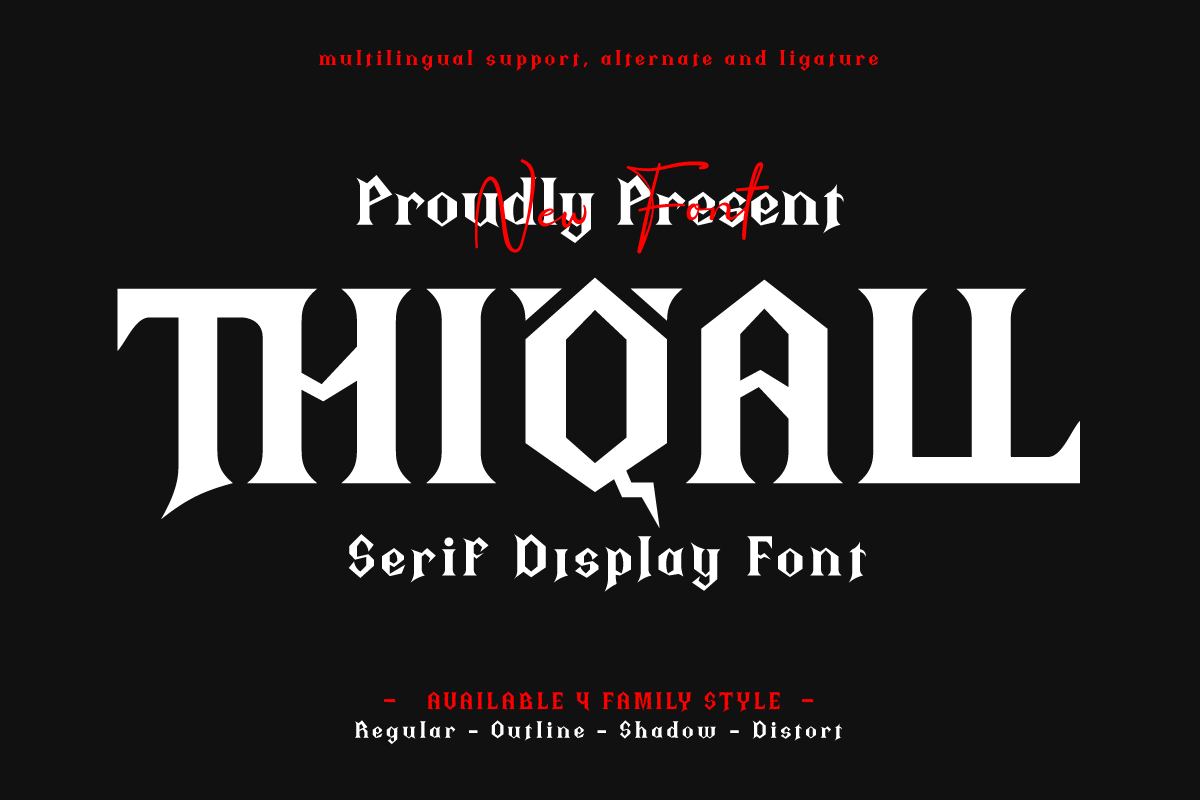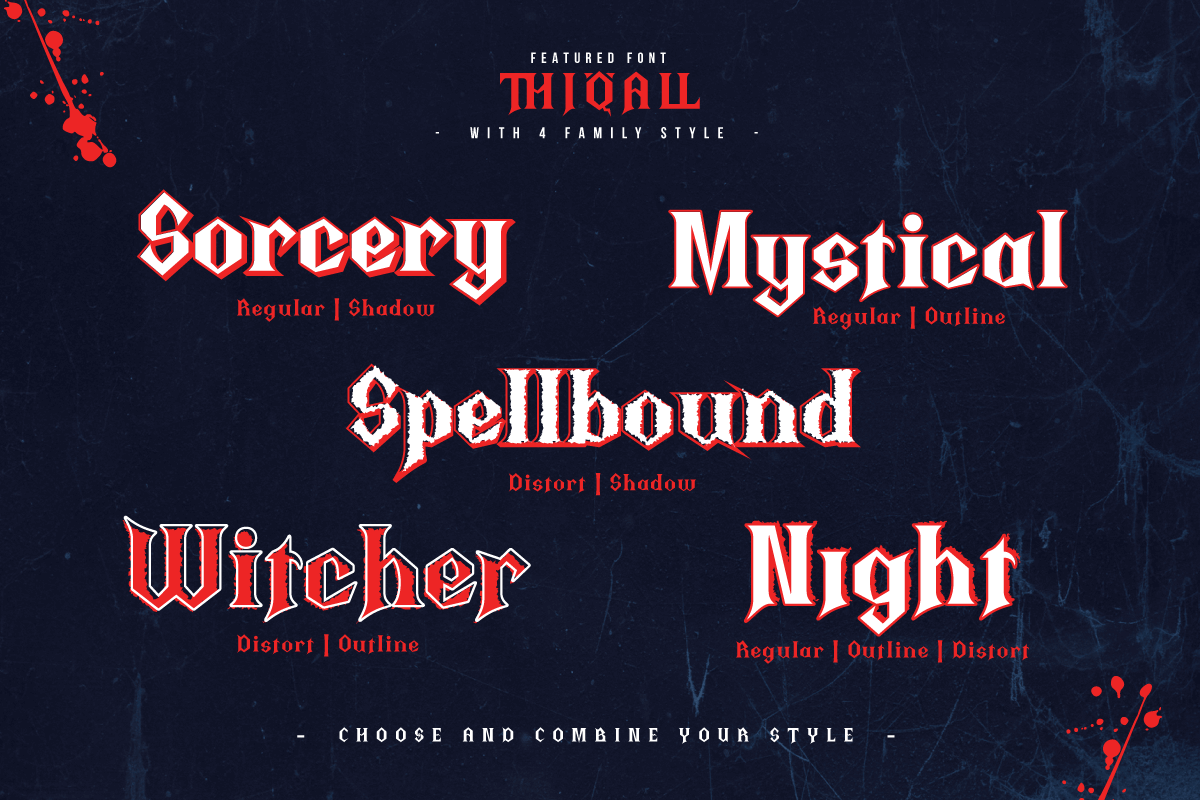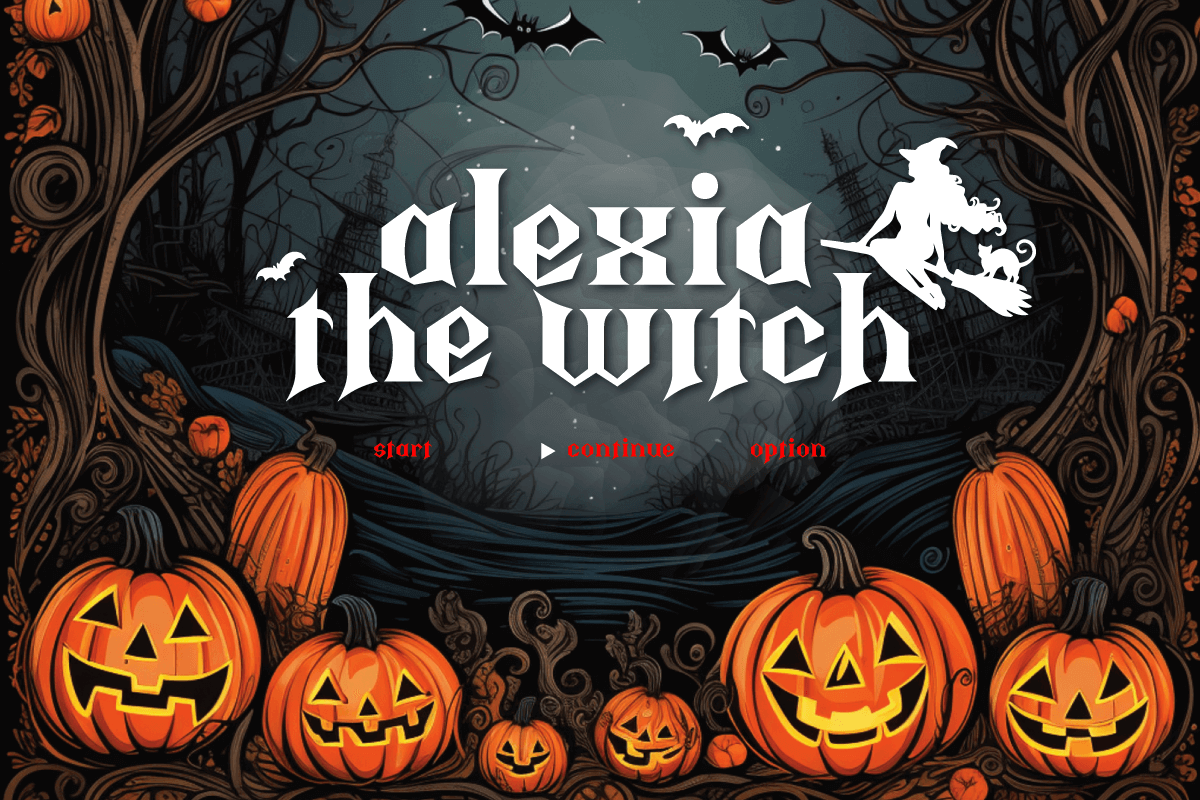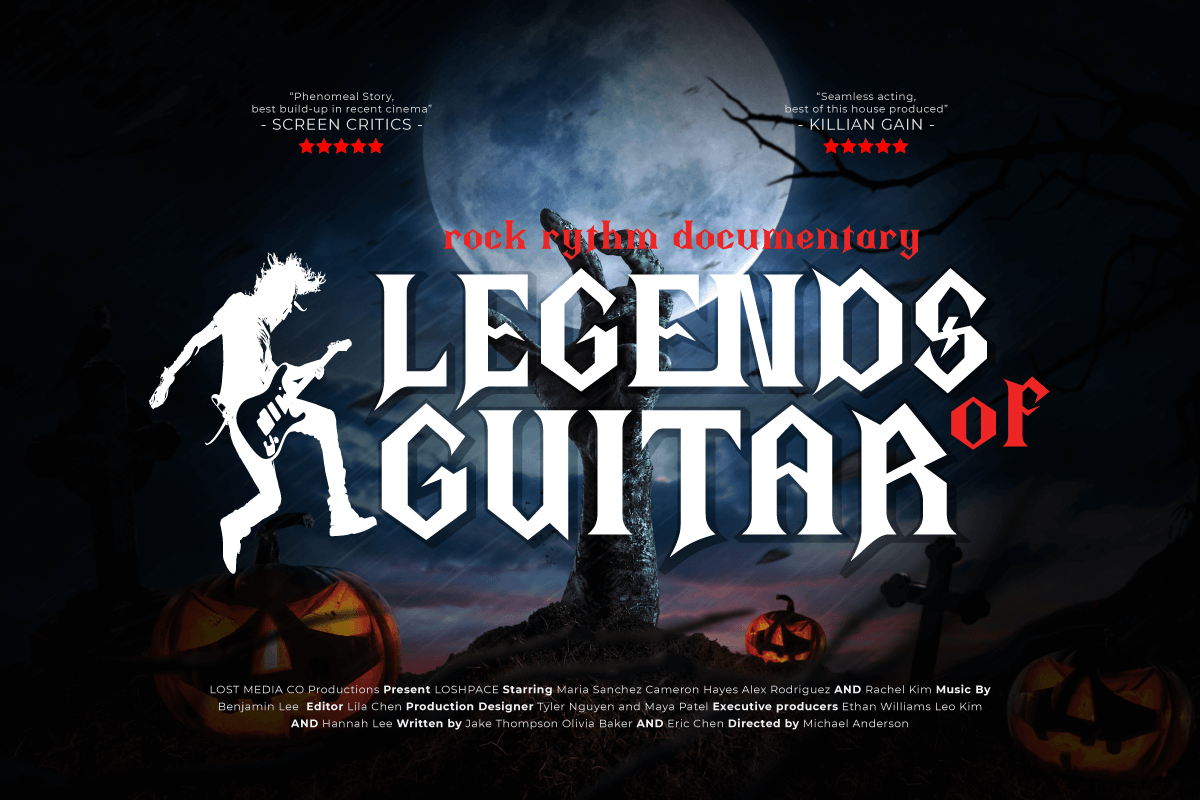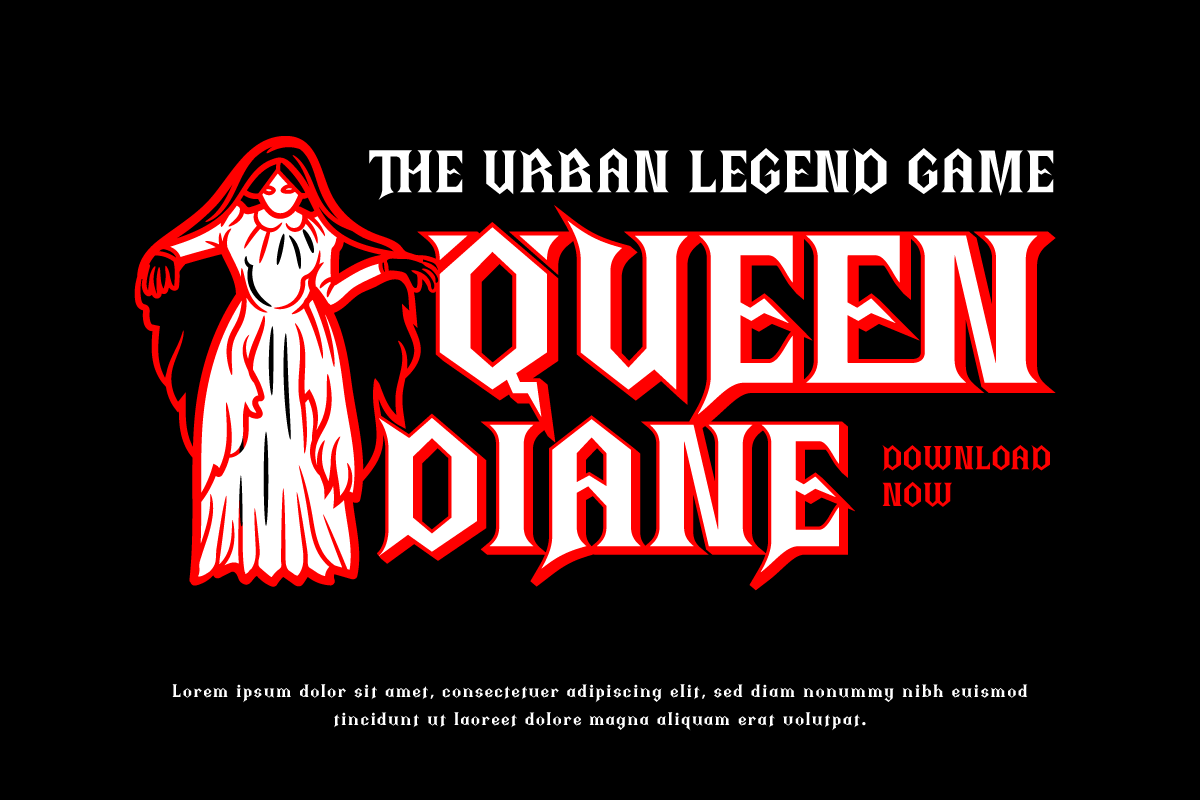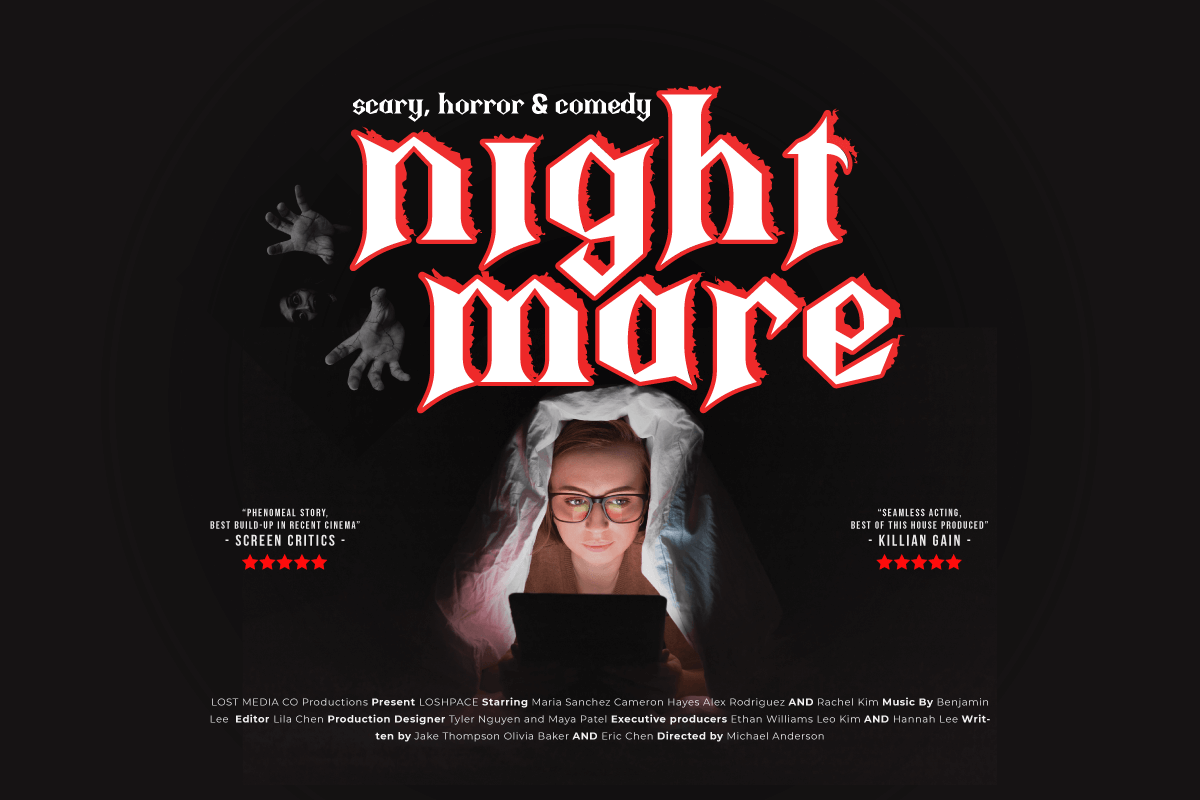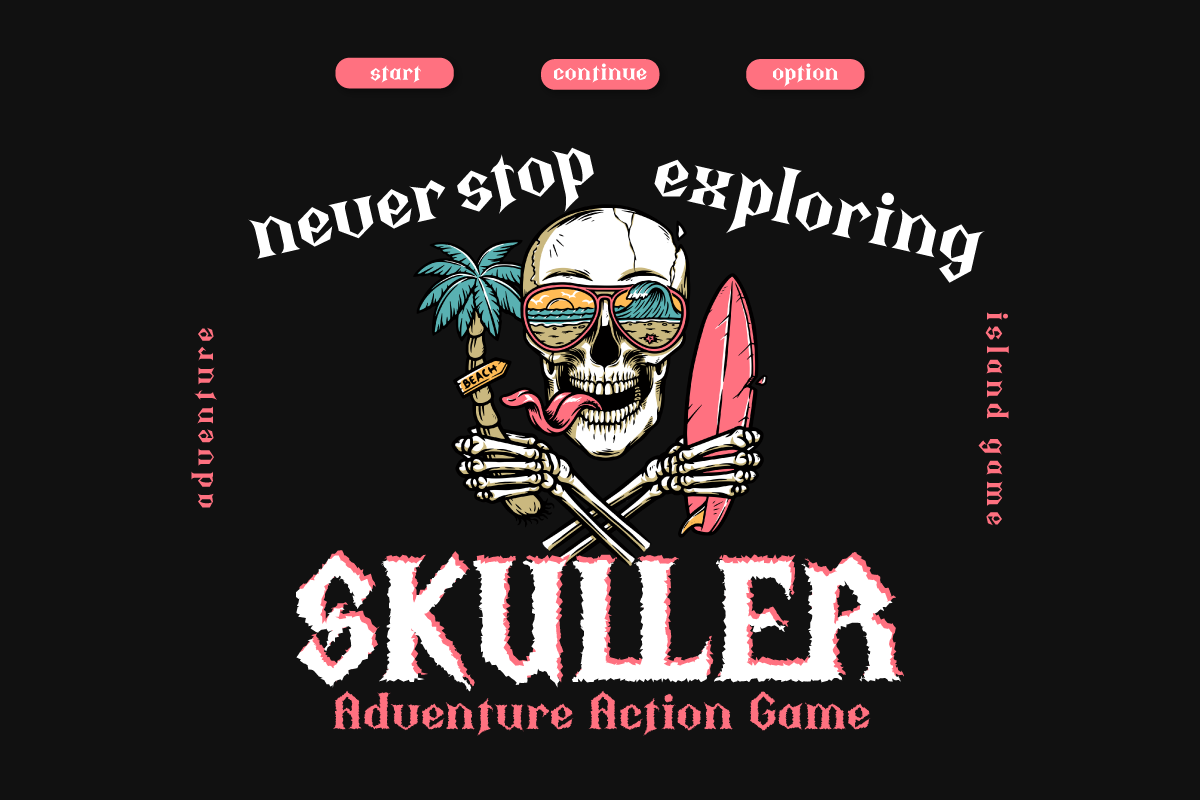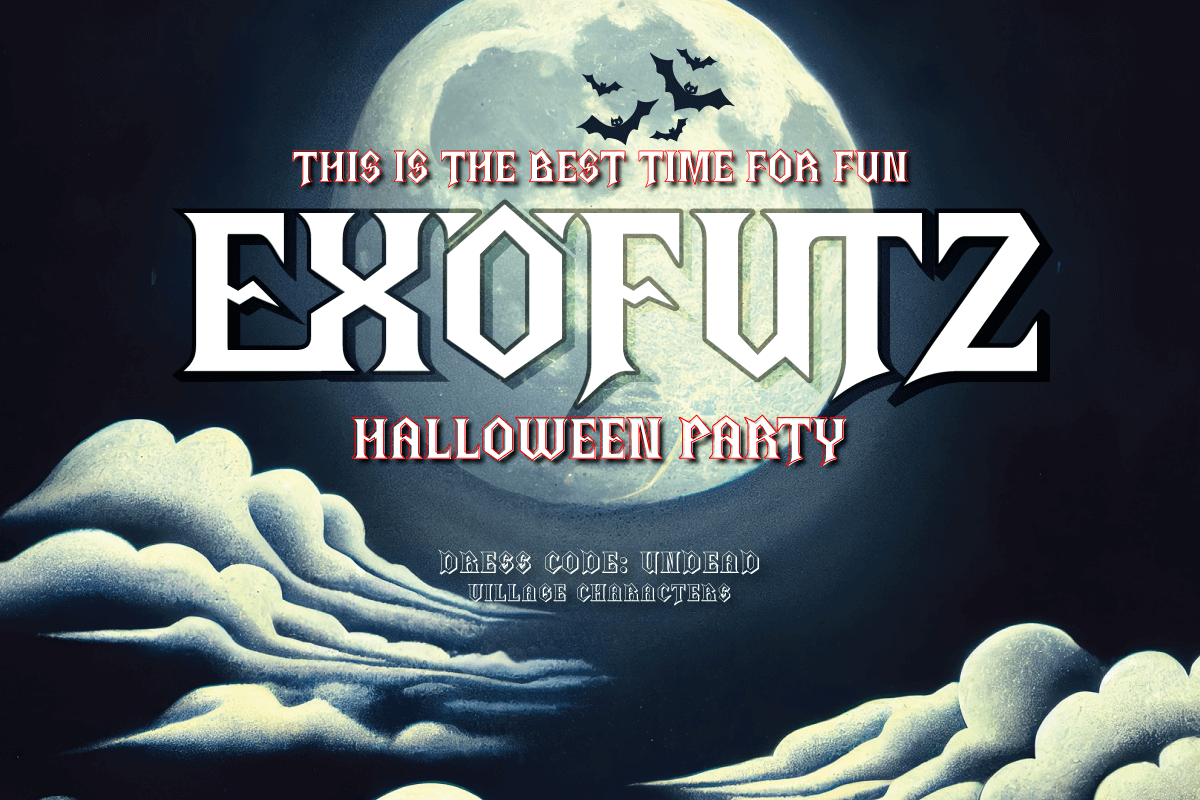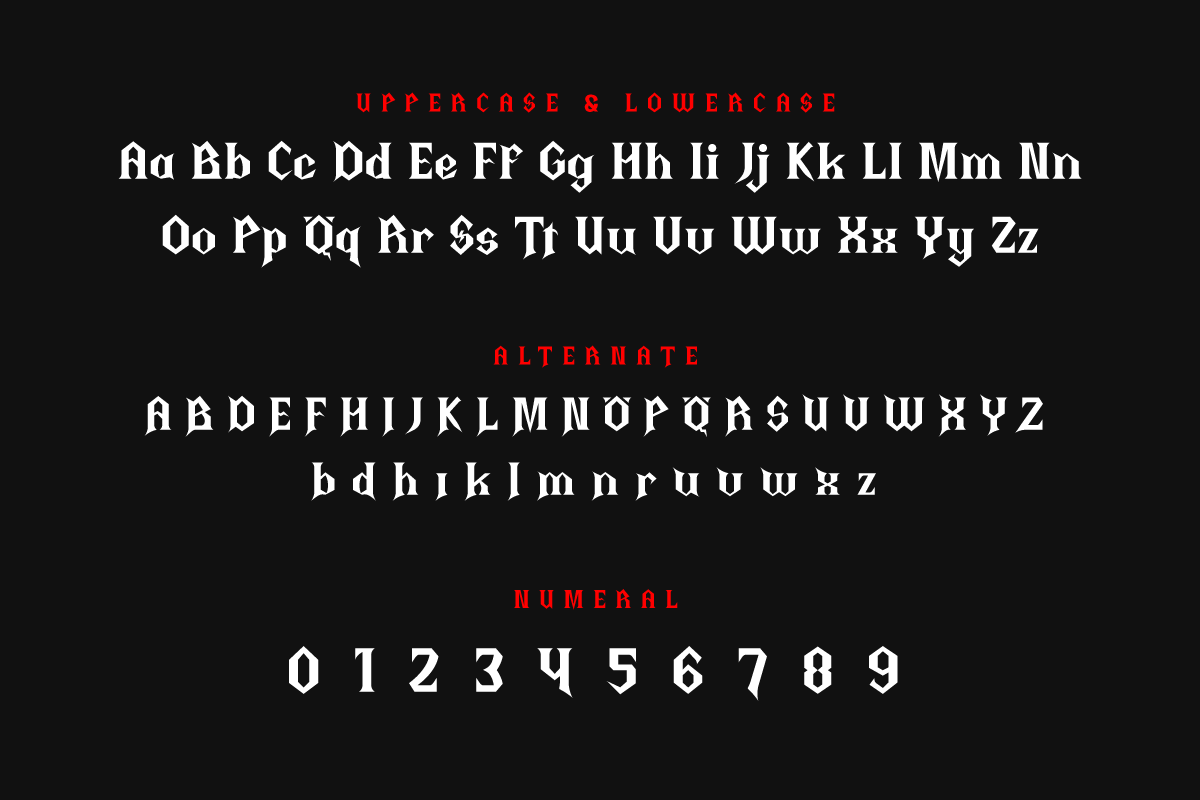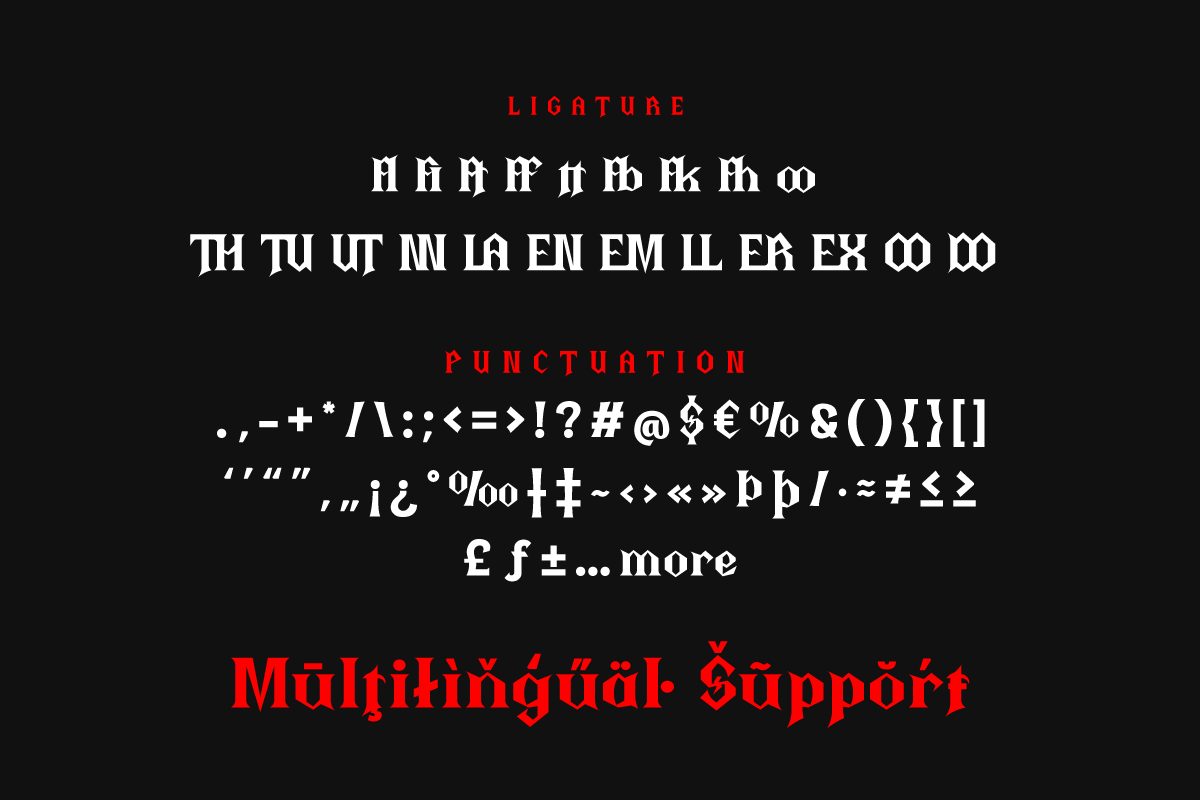
Thiqall – Serif Display Font
Shadow
Outline
Distort
In the world of typography, Thiqall is a figure who brings elegance through an unforgettable serif touch. Like a story, Thiqall begins his narrative in Regular style—a sturdy, well-proportioned foundation that offers classic beauty and uncompromising readability.
However, in its development, Thiqall’s story did not stop there. The Outline style adds an artistic dimension to each character. Bold borders provide visual clarity, making them worth considering in designs that require a custom touch.
Taking it a step further, Thiqall takes you to the next chapter in Shadow style. As if bringing the letters onto a theatrical stage, dramatic shading adds depth and accentuates each accent with style.
However, Thiqall’s story is not finished. The final chapter is Distort style. As in an artistic experiment, these letters undergo unique distortions that create an avant-garde look. A great choice for designs that want to appear bold and eye-catching.
With Thiqall, you don’t just choose a font; You weave a design narrative rich with choices and character. Thiqall opens your creativity book on every page, taking you on an unforgettable typographic journey.